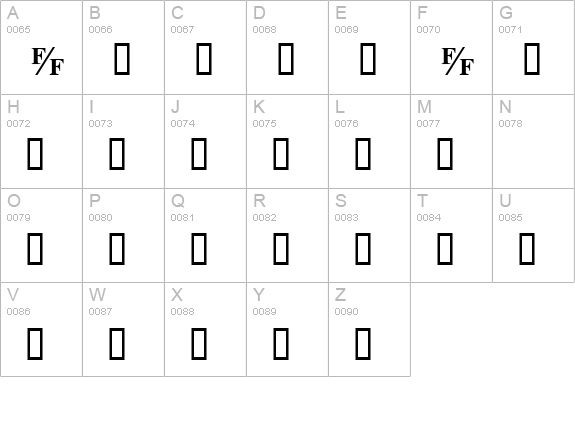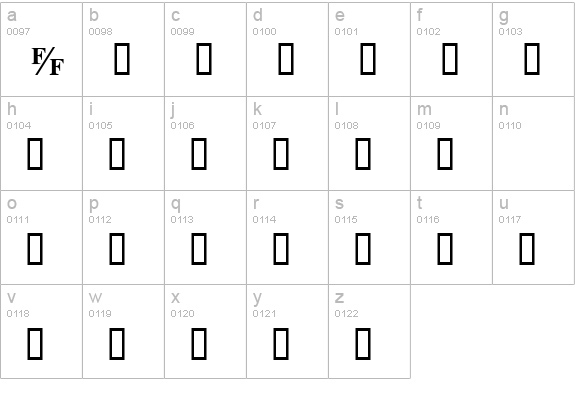
TmsFB Bold Font Details
TmsFB Bold is a strong, high-contrast variant in the TmsFB typeface family \xE2\x80\x94 well suited to headlines, attention-grabbing titles, and strong calls-to-action.
TmsFB Bold is a captivating and assertive font that exudes confidence and modernity. Its bold and striking letterforms make a powerful impact, making it perfect for eye-catching headlines, attention-grabbing logos, and impactful designs. This font is not only visually stunning but also incredibly versatile, allowing it to be used across various creative projects. Whether you're designing a poster, creating a sleek website, or crafting a standout branding identity, TmsFB Bold will elevate your work to new heights. One of the best things about TmsFB Bold is that it is freely available to download at FontsMarket.com. This means that you can easily access this amazing font without any cost. Its availability ensures that designers and creators from all walks of life can enjoy the benefits of this exceptional typeface. With TmsFB Bold, your designs will not only look professional but also make a lasting impression. Its clean and crisp lines, combined with its bold presence, create a sense of authority and sophistication. This font will make your message stand out and leave a lasting impact on your audience. Designed with meticulous attention to detail, TmsFB Bold offers a seamless reading experience, ensuring that your text is legible and easy to comprehend. Its well-balanced letterforms and generous spacing make it a pleasure to read, whether in print or on-screen. So, if you're looking for a font that combines boldness, versatility, and readability, look no further than TmsFB Bold. Get your hands on this exceptional typeface today, freely available for download at FontsMarket.com, and take your designs to the next level.